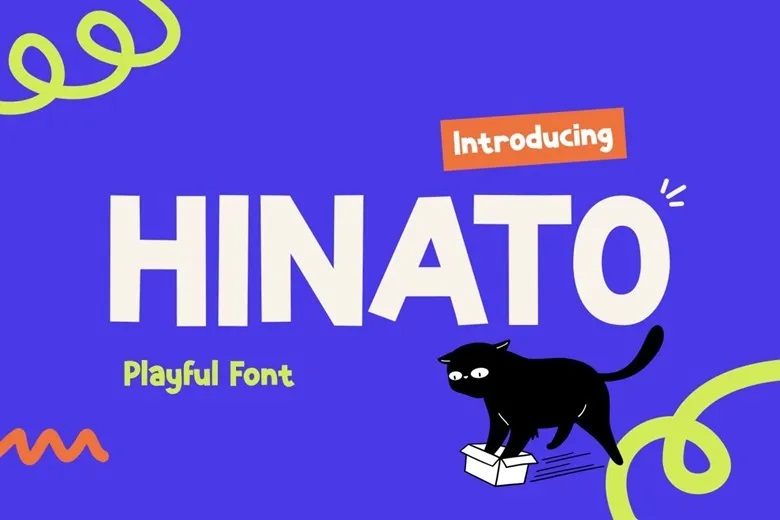
Hinato Font
Hinato is a happy and outspoken display font that can be used to introduce positivity into any design immediately. The font is very welcoming and vibrant at first glance. In addition, its daring fonts assist messages to be very noticeable. The corrugated edges are soft and round, which produce a non-intimidating sound.
Because of this, the font is secure and friendly to kid-related visuals. Each character is well defined to appear amusing and in balance. Due to this fact, the font is legible and at the same time playful. The aesthetic, in general, is vivid, fantastical, and joyful.
Hinato Display Font